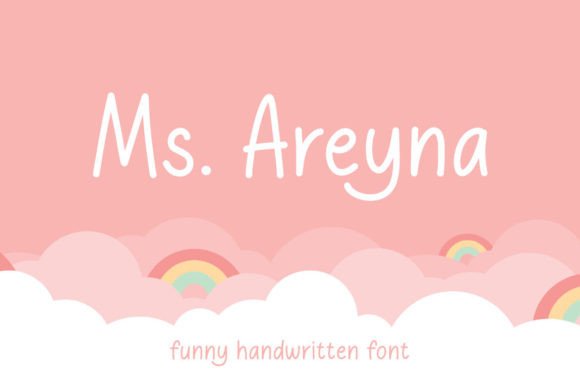
Welcome to the world of Ms. Areyna Font, an enchanting script font that will add a touch of elegance and authenticity to your creative projects. Let your imagination dance as you explore the endless possibilities that await with Ms. Areyna, a font that promises to capture hearts and leave a lasting impression.
Ms. Areyna's graceful, sweeping strokes evoke a sense of nostalgia, as if each letter were carefully penned with a fountain pen. The font's organic, handwritten style adds a personal touch to your designs, creating a connection with your audience that feels both intimate and inviting. Whether you're crafting wedding invitations, designing magazine logos, or writing book titles, Ms. Areyna will elevate your work with a timeless charm that is sure to impress.
Dive into the depths of Ms. Areyna's versatility, and discover a font that adapts effortlessly to a myriad of creative endeavors. Its flowing lines dance gracefully on greeting cards, adding a touch of warmth and personality to your messages. Embrace the captivating charm of Ms. Areyna in your social media posts, allowing your words to shine with a distinctive flair that sets you apart from the crowd. Whether you're creating marketing materials, designing posters, or simply expressing your creativity, Ms. Areyna will be your trusted companion, transforming your ideas into visual masterpieces.
With Ms. Areyna at your fingertips, you'll embark on a creative journey that knows no bounds. Experience the joy of crafting handmade letters, greeting cards, and invitations that come alive with Ms. Areyna's enchanting strokes. Your words will take on a new life, resonating with authenticity and emotion that touch the hearts of your recipients. From casual notes to formal announcements, Ms. Areyna will add an unforgettable touch of elegance to every piece of correspondence.
Welcome to the world of Ms. Areyna Font, where creativity flourishes and your imagination takes center stage. Elevate your designs with a font that speaks volumes, a font that captures the essence of handwritten beauty and transforms your words into works of art. Embrace the allure of Ms. Areyna, and let your creative spirit soar to new heights.